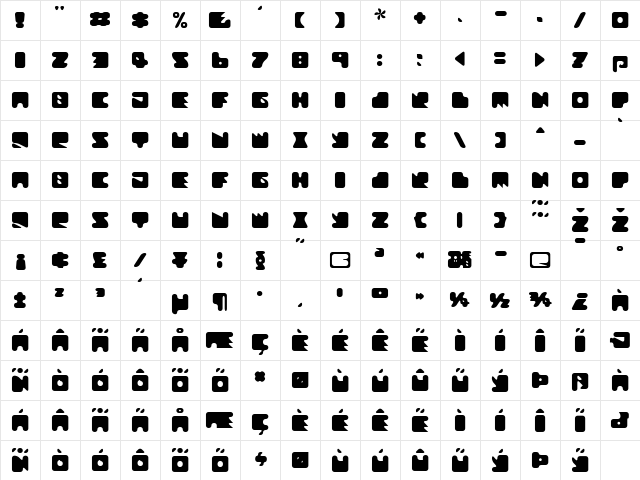
Textan Round Regular
| Designer | Rich Parks |
Design Context for Textan Round Typeface
Textan Round uses gentle rounded endings to create a warm, inviting typographic personality — less corporate than geometric sans, more refined than playful display fonts.
A natural fit for tech startups, health and wellness brands, children's products, and friendly consumer apps.
Font Pairing: Pairs well with a rounded or humanist sans for body copy, maintaining the friendly tone without relying on Textan Round to carry extended reading.
Pro Tip: Pair Textan Round with a geometric sans for a balanced system — the rounded softness works as a warm counterpoint to harder-edged companions.